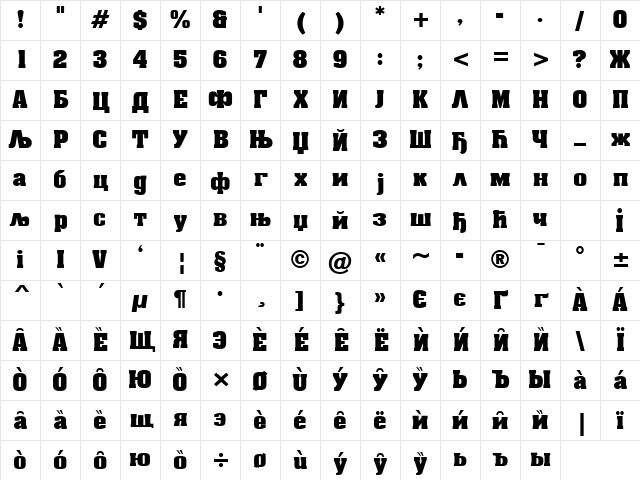
Cir Aardvark Bold
Cir Aardvark Family
Cir Aardvark Bold
Design Context for Cir Aardvark
Cir Aardvark is a composed and adaptable typeface that performs quietly and consistently across a wide range of design contexts. Its bold stroke weight gives it real presence on the page.